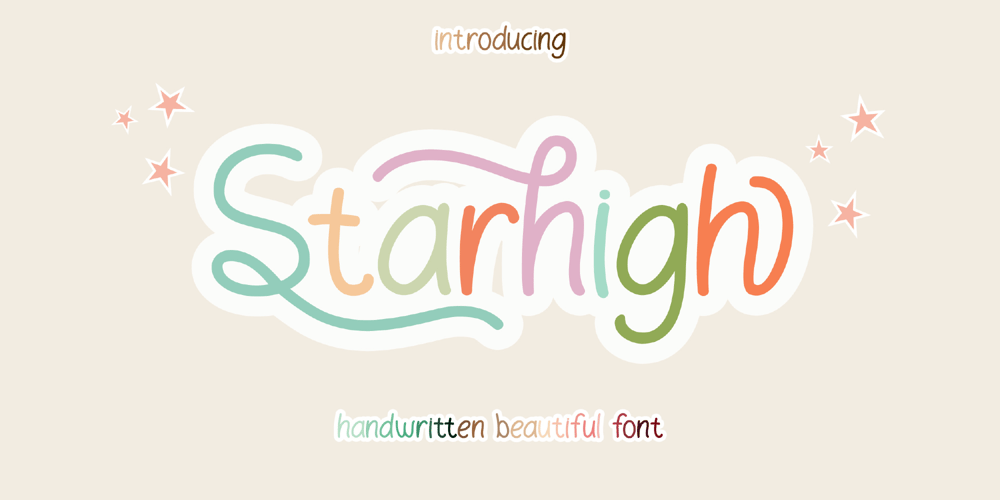
Starhigh Font Family was designed by Achmad Yani and published by Flawlessandco. Starhigh contains 1 styles and family package options. Introducing “Starhigh” – a captivating and beautifully handwritten font that adds a touch of elegance and charm to your designs. With its graceful letterforms and delicate strokes, Starhigh brings a sense of beauty and sophistication to any project. There’s some connected letters and some alternates that suitable for any graphic designs such as branding materials, t-shirt, print, business cards, logo, poster, t-shirt, photography, quotes .etcThis font support for some multilingual. Also contains uppercase A-Z and lowercase a-z, alternate character, numbers 0-9, and some punctuation.If you need help, just write me! Thanks so much for checking out my shop!